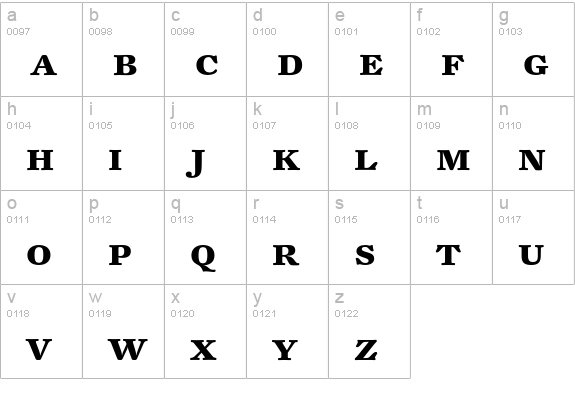
DTL Fleischmann T Bold Caps is a strong, high-contrast variant in the DTL typeface family \xE2\x80\x94 well suited to headlines, attention-grabbing titles, and strong calls-to-action.
The DTL Fleischmann T Bold Caps font is a striking and versatile typeface, designed to make a bold statement in any design project. Its strong, clean lines and distinctive caps make it ideal for headlines, titles, and branding applications. With its timeless elegance and modern appeal, this font exudes confidence and sophistication. Best of all, the DTL Fleischmann T Bold Caps font is available for free download at FontsMarket.com. Whether you're a designer looking to add a touch of flair to your work or a business owner in need of a professional and attention-grabbing font, this typeface has you covered. Download it today and elevate your designs with this impressive and stylish font.